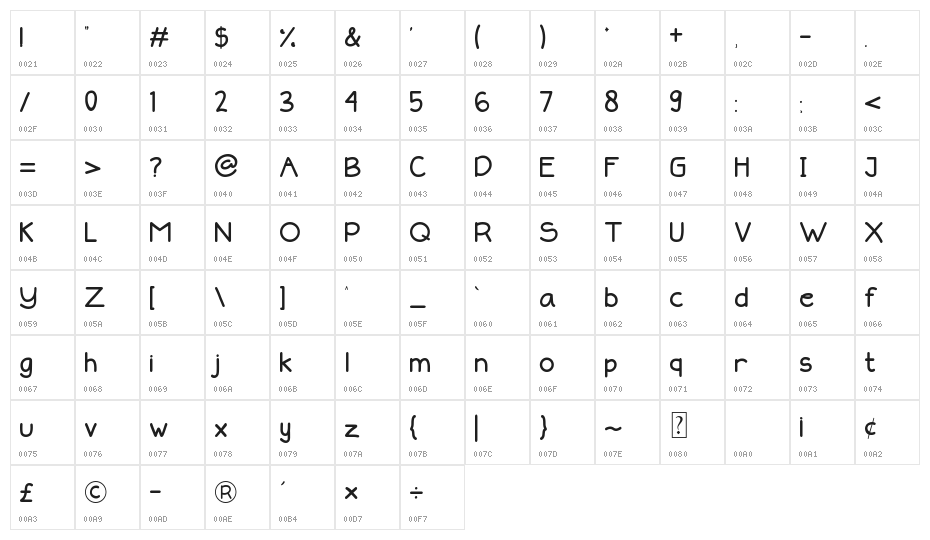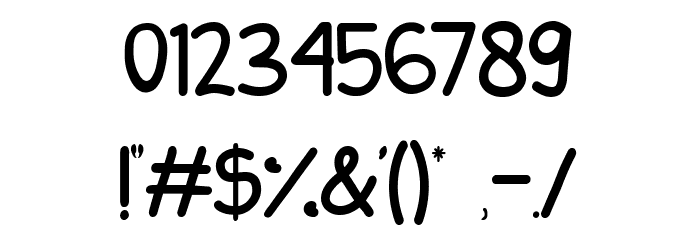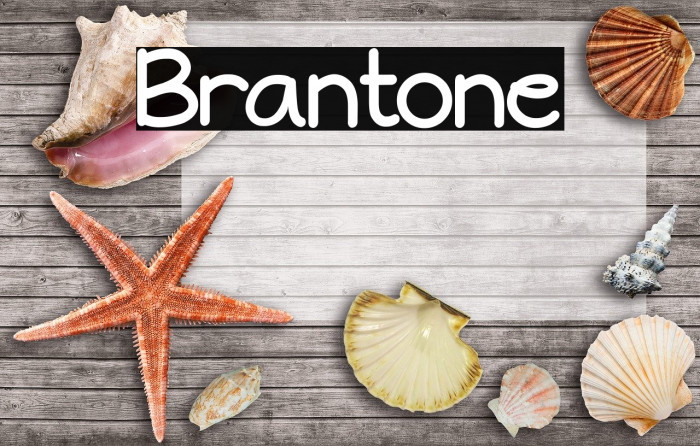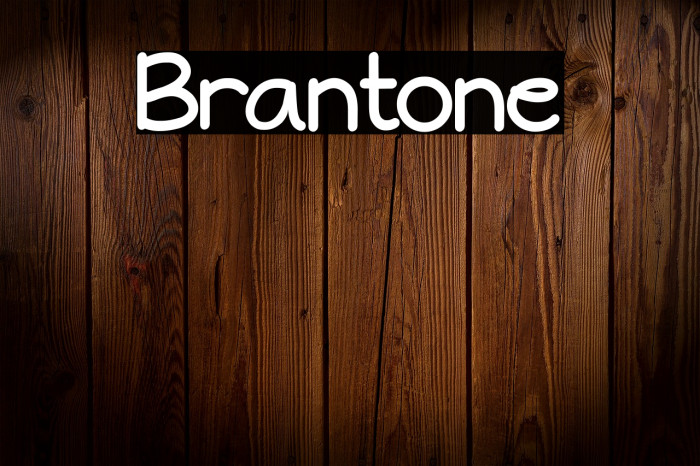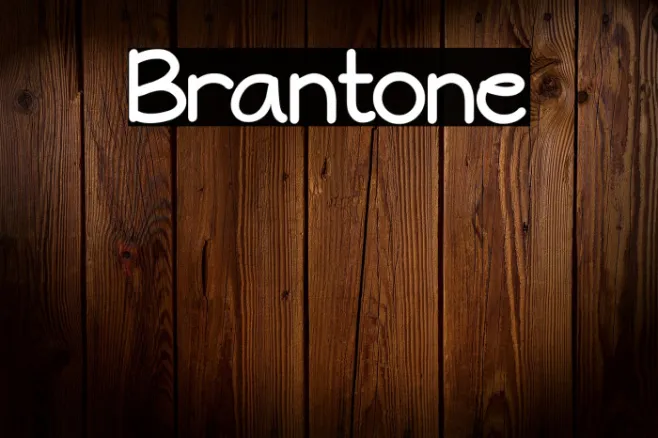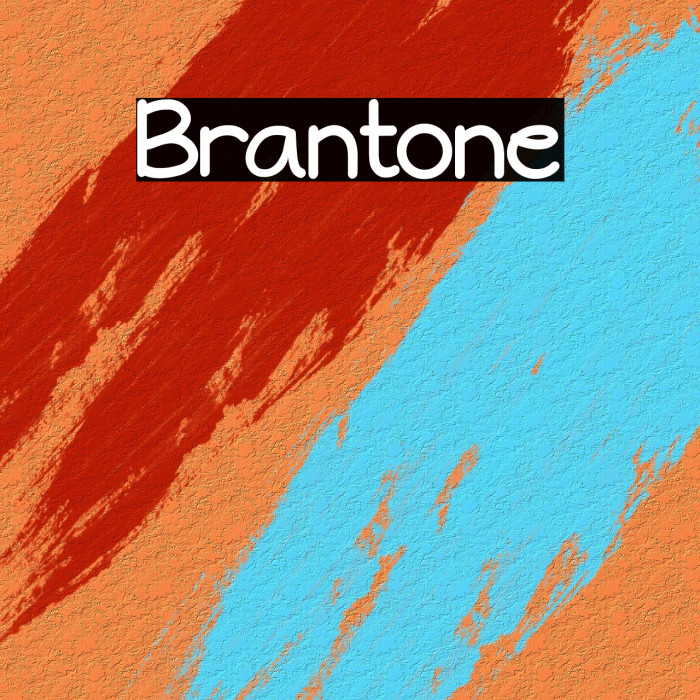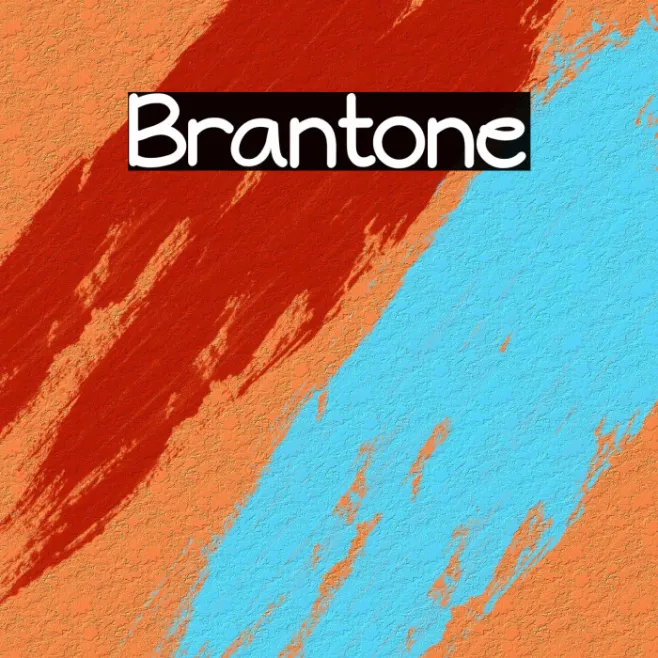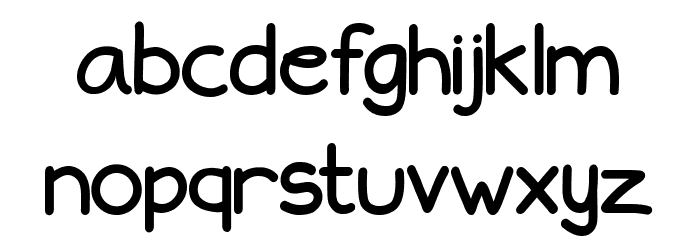
Brantone Font
Brantone Description
This font exhibits a playful and rounded style, characterized by its smooth curves and uniform stroke width. The letters are well-balanced, with a consistent height and width that contribute to its legibility. The rounded edges give it a friendly and approachable appearance, making it suitable for a variety of informal and creative applications. The numerals and special characters maintain the same rounded aesthetic, ensuring a cohesive look across all text elements. This font is versatile, offering a modern yet whimsical feel that can enhance the visual appeal of any project.
| Proposed Projects | Ideal for children's books, playful branding, casual invitations, and creative posters. |